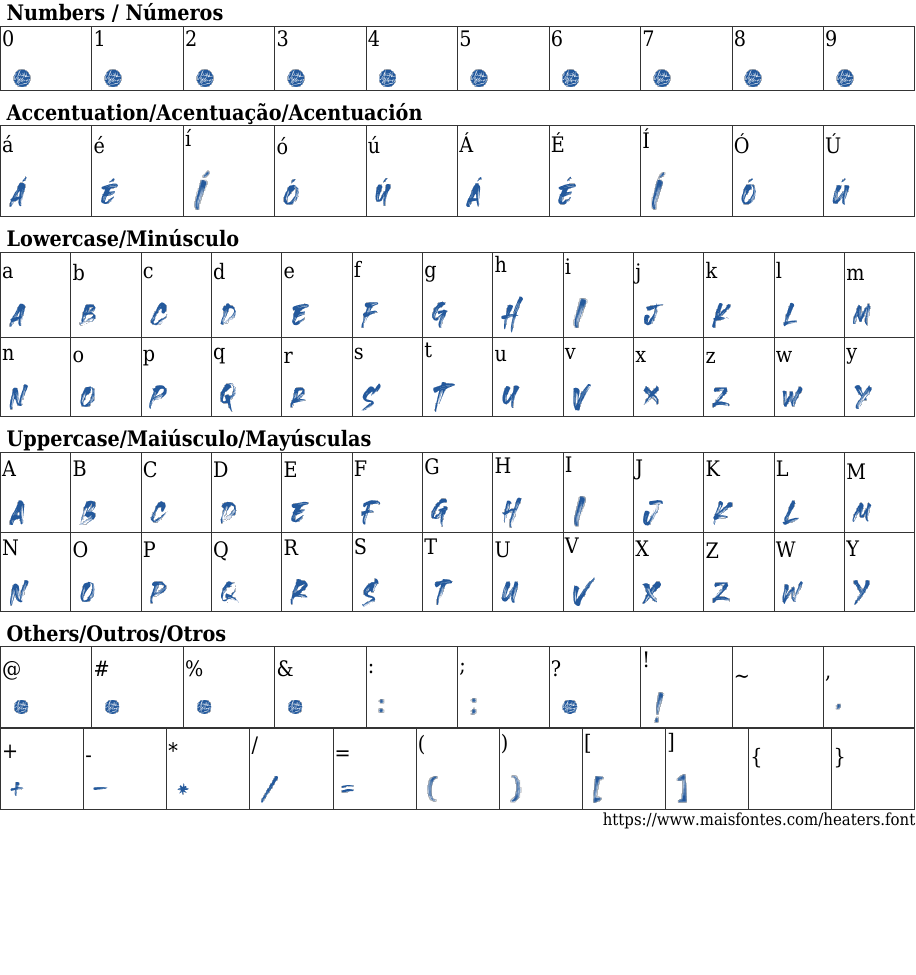
Heaters Font Download . get your very own free download of the heaters font, designed and created by mlkwsn. Heaters font preserves all the high definition detail of the original handwritten. heaters employs fresh technology that creates a place for more realistic fonts and will necessarily attract. This demo font is for personal use only! Available in both ttf and otf. download the heaters font for free. download heaters font from free cdn or use it on your website as webfont. Moreover, you can embed it to your website with. heaters font by mlkwsn studio.